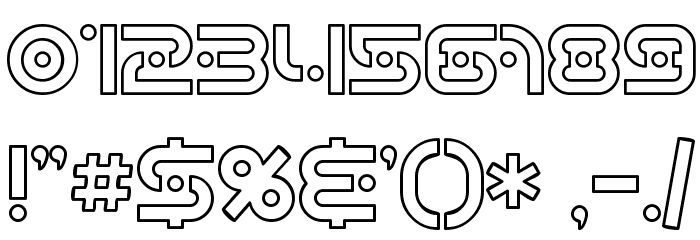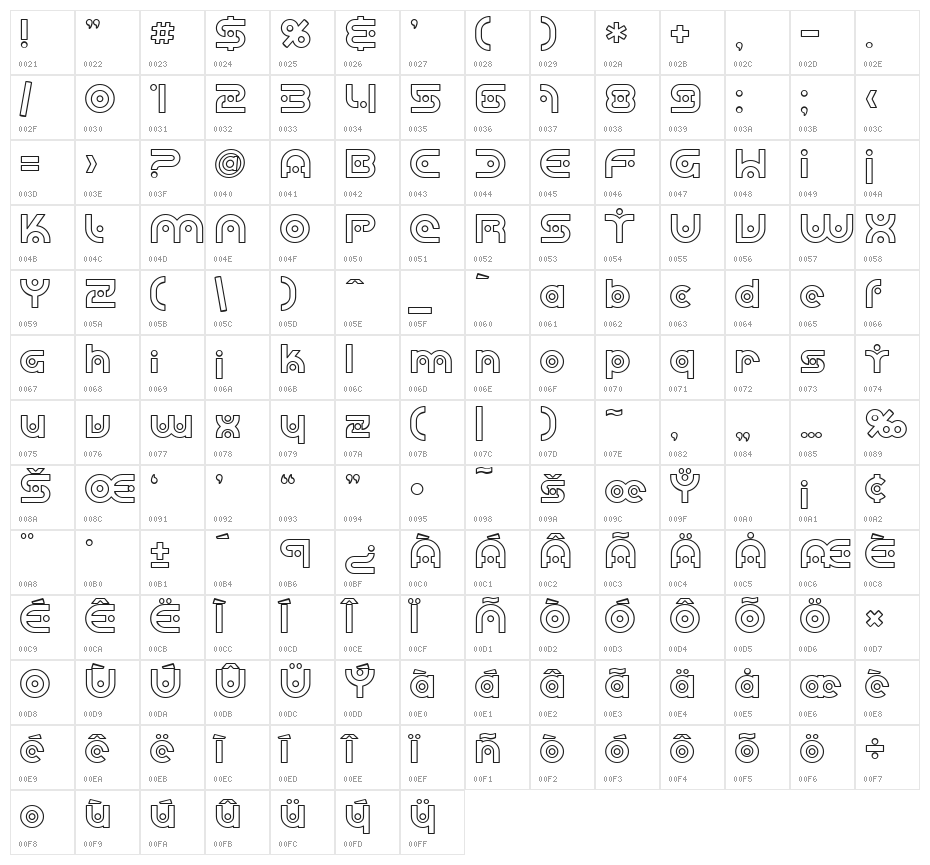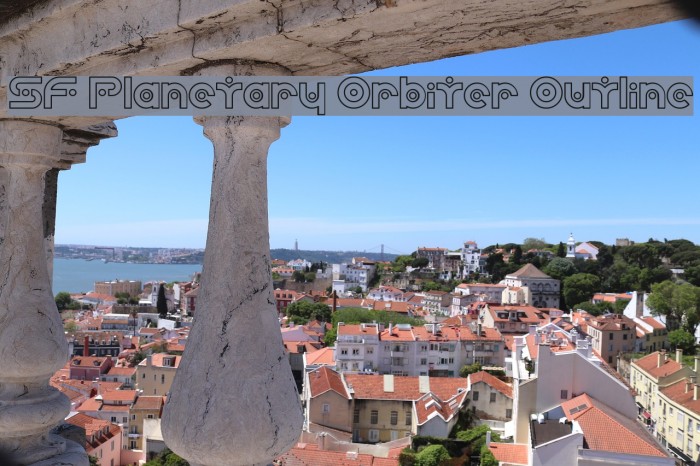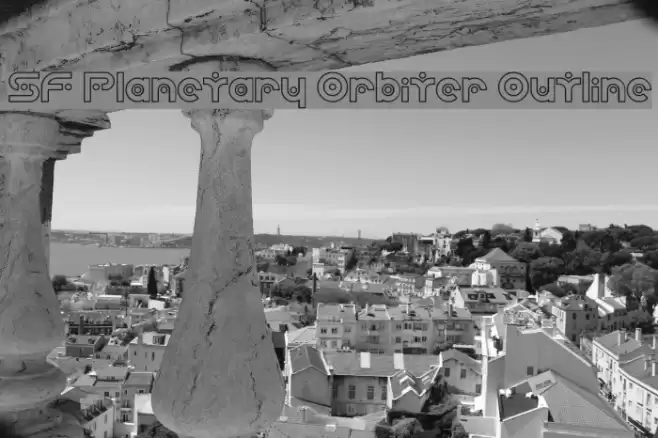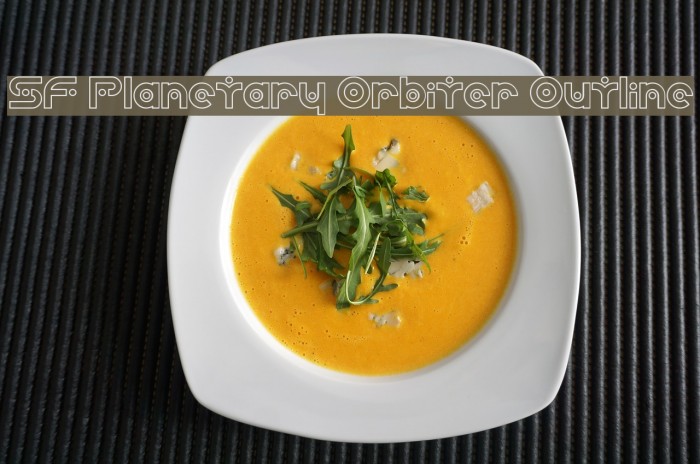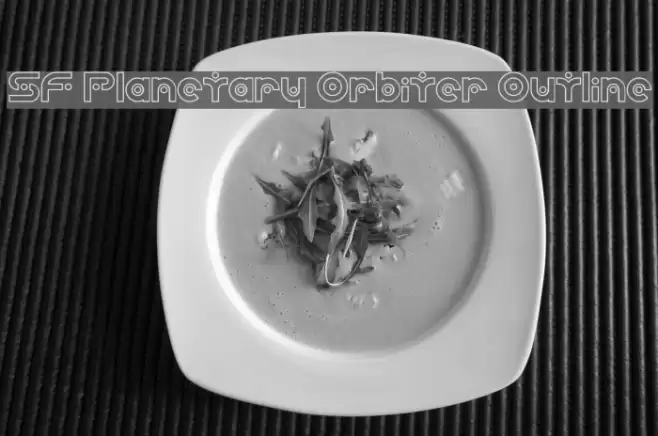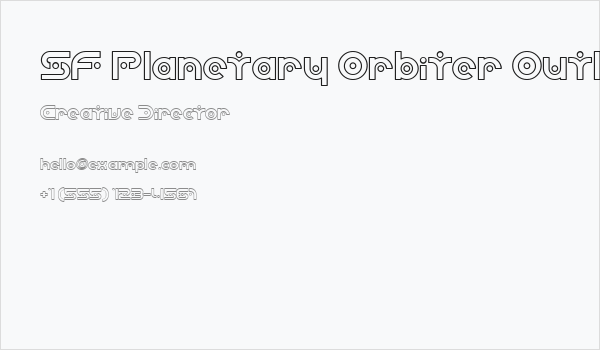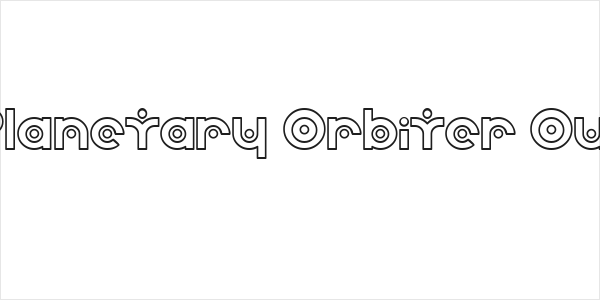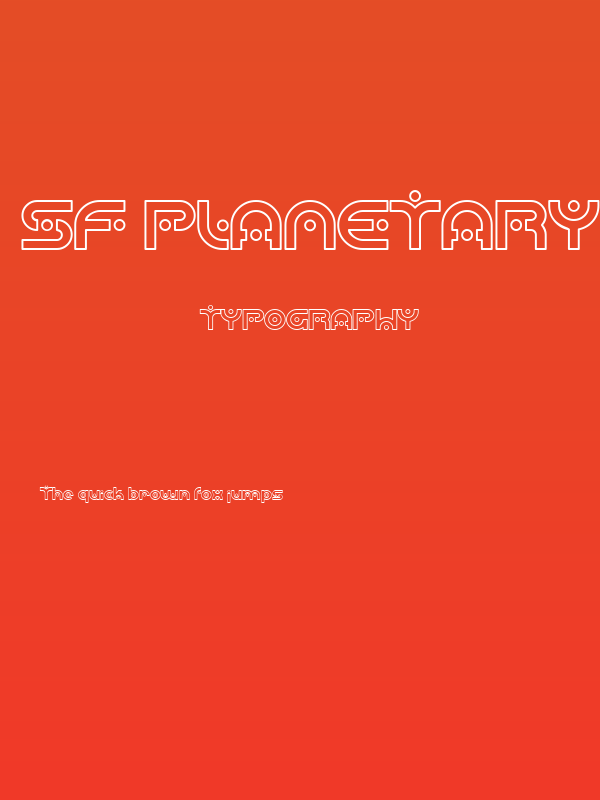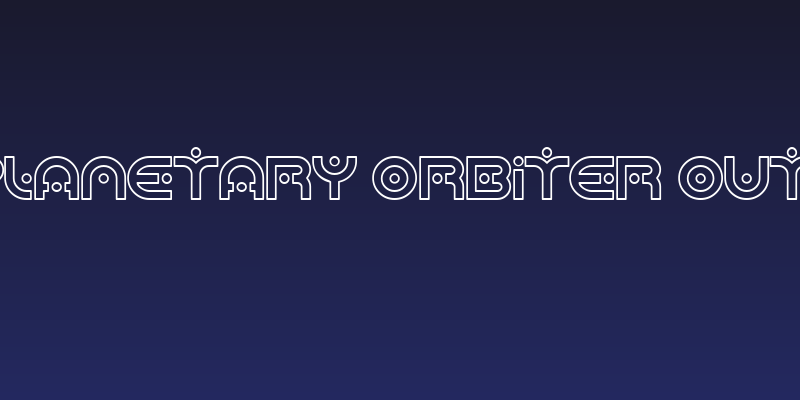
SF Planetary Orbiter Outline Font
SF Planetary Orbiter Outline Description
This font features a futuristic and geometric design, characterized by its outlined style and circular elements integrated into the letterforms. The uppercase and lowercase letters maintain a consistent width, creating a uniform appearance. The design incorporates unique cutouts and rounded edges, giving it a modern and space-inspired aesthetic. The numerals and special characters follow the same stylistic approach, ensuring cohesion across all glyphs. This font's distinct outline and geometric shapes make it ideal for projects that require a bold and innovative look.
Overall StyleFuturistic
Proposed ProjectsIdeal for sci-fi themed posters, video game titles, technology branding, and futuristic event invitations.